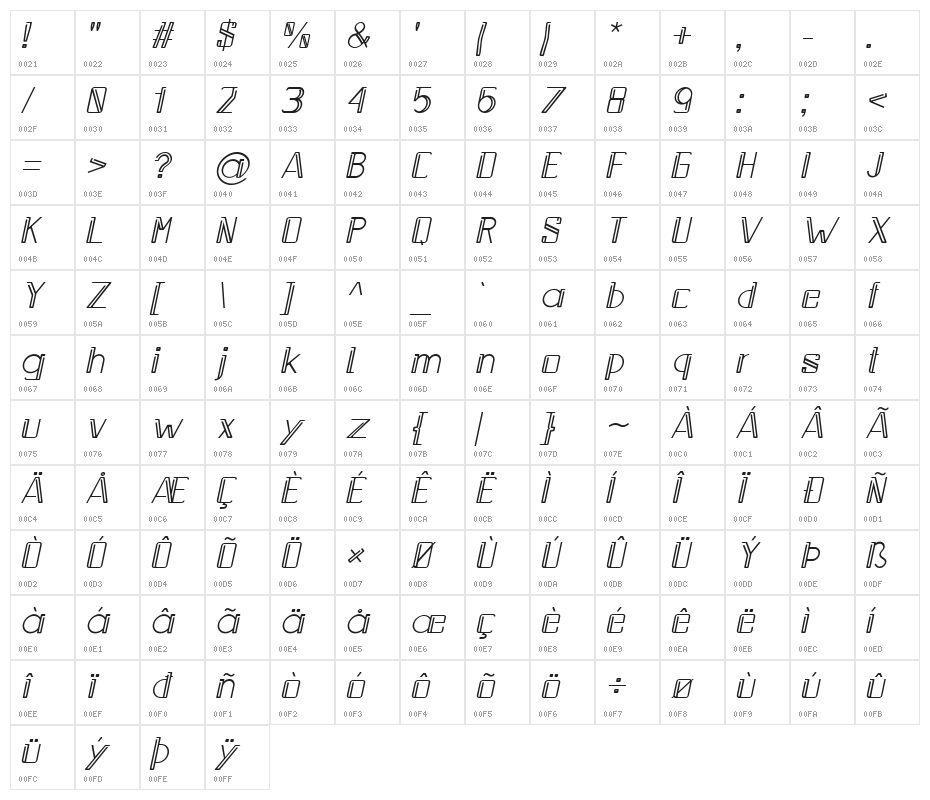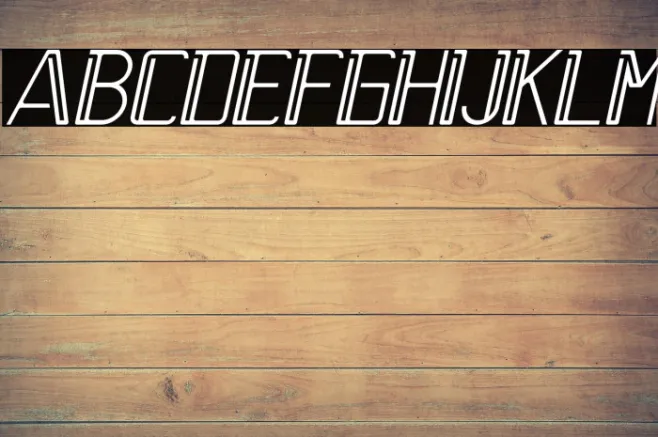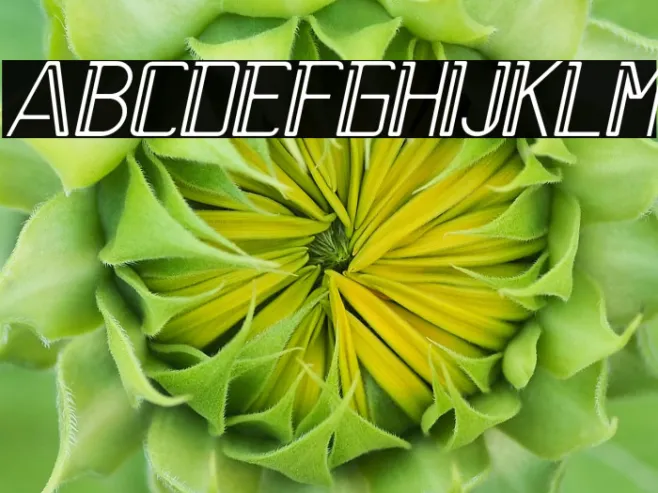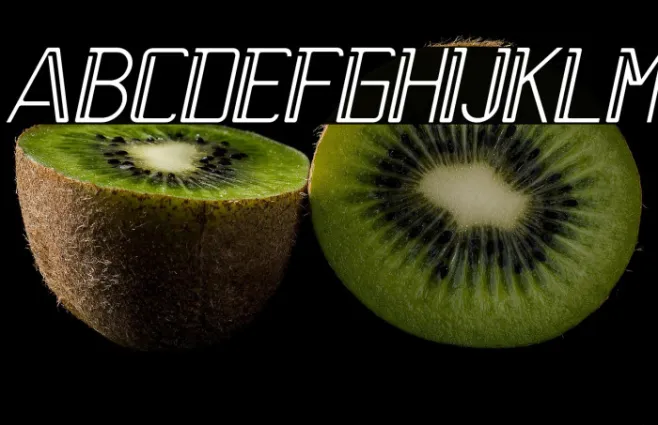
Walterson Italic Font
Walterson Italic Description
This font features a sleek, modern design with a distinct italic slant, giving it a dynamic and forward-moving appearance. The characters are constructed with clean, straight lines and sharp angles, creating a sense of precision and efficiency. The uppercase and lowercase letters maintain a consistent style, with the lowercase being slightly more rounded. Numbers and special characters follow the same angular and streamlined aesthetic, ensuring uniformity across all glyphs. The font's open structure and moderate spacing make it highly legible, even at smaller sizes. Its contemporary look is well-suited for projects that require a touch of sophistication and modernity.